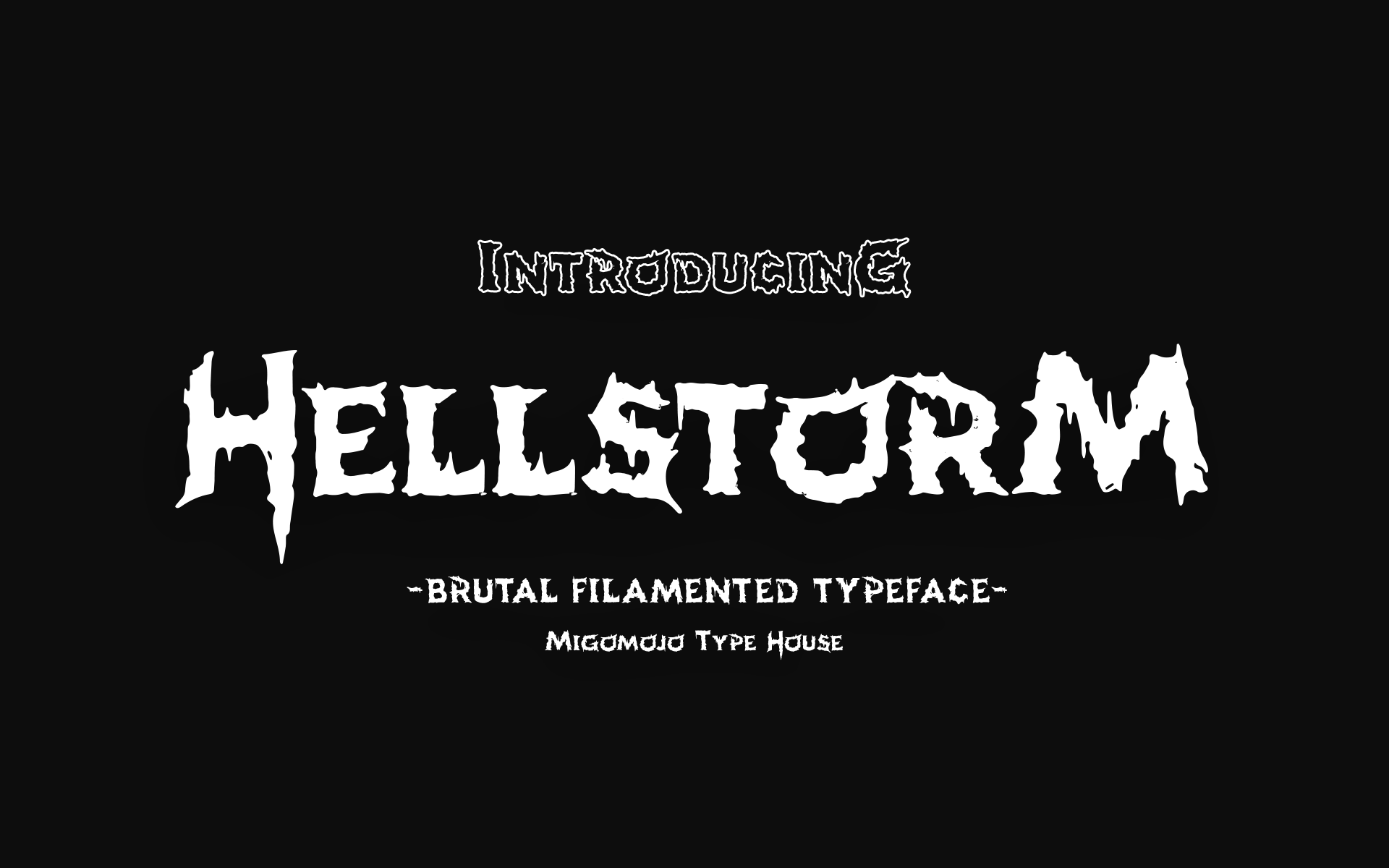
Hellstorm Brutal Typeface
Hellstorm forged from the depths of the underground metal scene. Inspired by the raw energy of heavy metal, anti-design rebellion, and the grit of brutalism, this typeface exudes a ferocious and anathemic vibe. Its filamented design captures the essence of chaotic intensity, horror and spooky, making it the perfect choice for projects that demand a fierce and untamed aesthetic. Cheers!